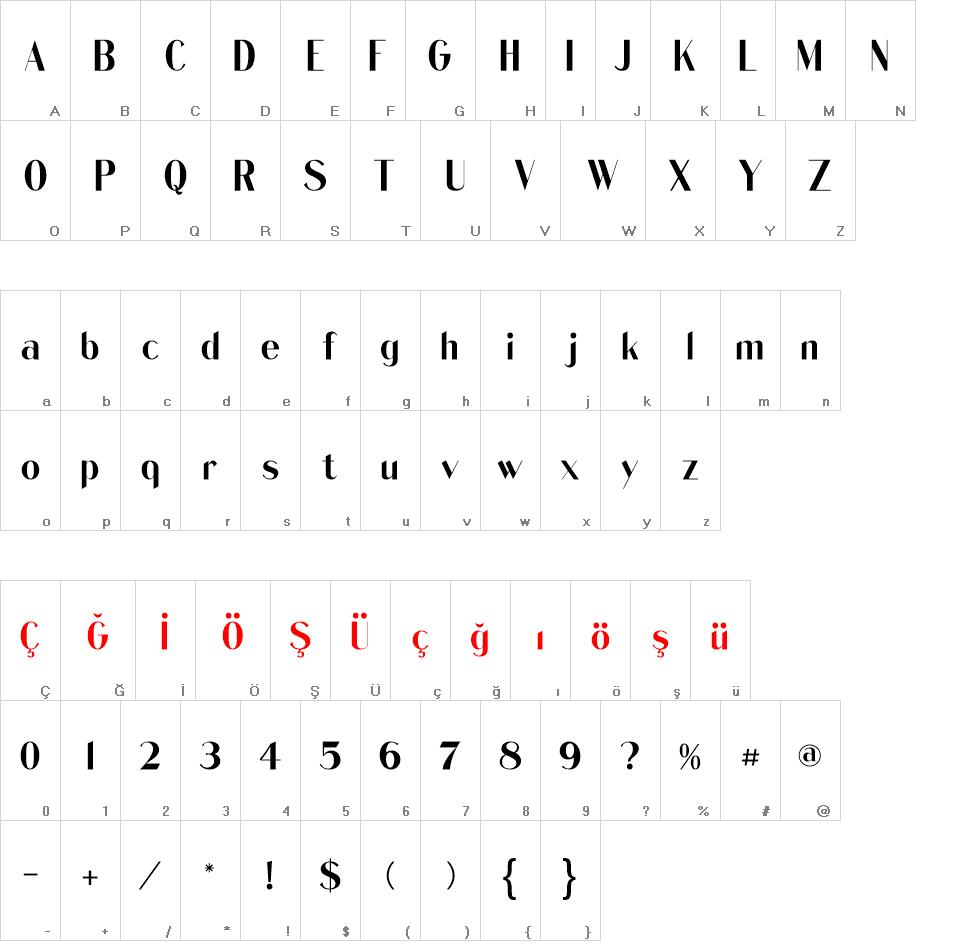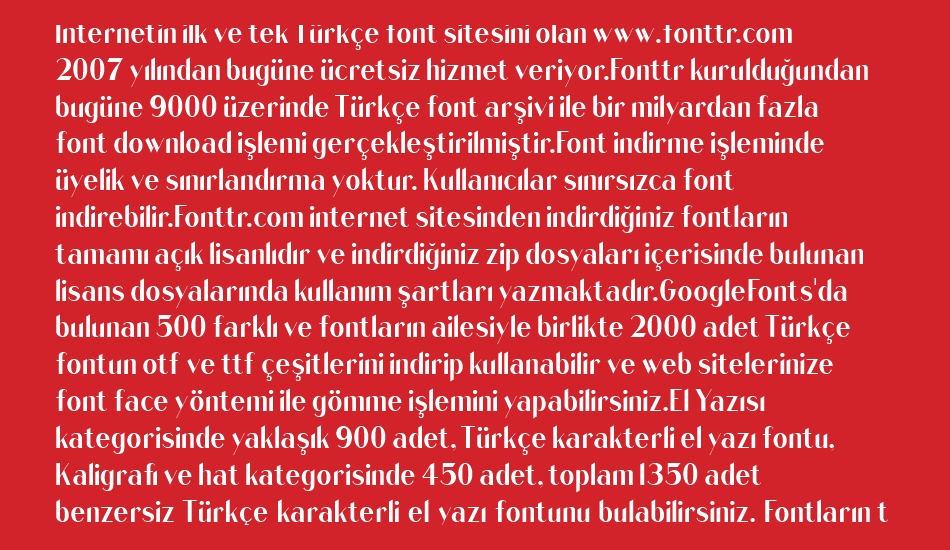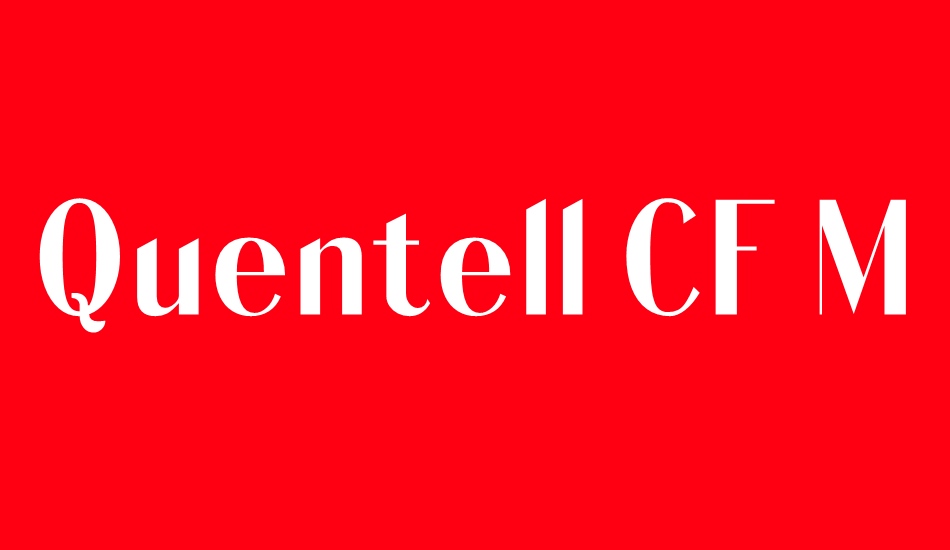
Quentell CF font
QUENTELL is my revival — completely redrawn — of “QUENTELL,” designed by William P. Quentell in 1895 for the American Type Founders Co. I found it in the American Line Type Book (ATF, 1906). It appears to be in the public domain. The original QUENTELL became the basis of Taylor Gothic (1897). Taylor Gothic was morphed in Globe Gothic by Morris Fuller Benton (1905) for the ATF. A cursory perusal will easily reveal their similarities.
QUENTELL is a bold serif typeface in three weights: Medium, Semibold, and Bold. Because it uses thick and thin stems, it could be used in Art Deco-inspired designs (cf. Ludlow typefaces). QUENTELL would work in “vintage modern” design as well. In short, QUENTELL is at once formal and informal at the same time, making it a flexible tool for everything from advertising to posters to logos. Since QUENTELL was designed as an advertising typeface, I would not recommend it for continuous text; it’s too dark and idiosyncratic.
QUENTELL supports Afrikaans, Albanian, Asu, Basque, Bemba, Bena, Bosnian, Catalan, Chiga, Colognian, Cornish, Croatian, Czech, Danish, Dutch, English, Estonian, Faroese, Filipino, Finnish, French, Friulian, Galician, Ganda, German, Gusii, Hungarian, Icelandic, Inari Sami, Indonesian, Irish, Italian, Jola-Fonyi, Kabuverdianu, Kalenjin, Kinyarwanda, Latvian, Lithuanian, Low German, Lower Sorbian, Luo, Luxembourgish, Luyia, Machame, Makhuwa-Meetto, Makonde, Malagasy, Malay, Maltese, Manx, Morisyen, North Ndebele, Northern Sami, Norwegian Bokmål, Norwegian Nynorsk, Nyankole, Oromo, Polish, Portuguese, Romanian, Romansh, Rombo, Rundi, Rwa, Samburu, Sango, Sangu, Scottish Gaelic, Sena, Shambala, Shona, Slovak, Slovenian, Soga, Somali, Spanish, Swahili, Swedish, Swiss German, Taita, Teso, Turkish, Turkmen, Upper Sorbian, Vunjo, Welsh, Western Frisian, and Zulu.
QUENTELL has 376 glyphs, including discretionary ligatures.